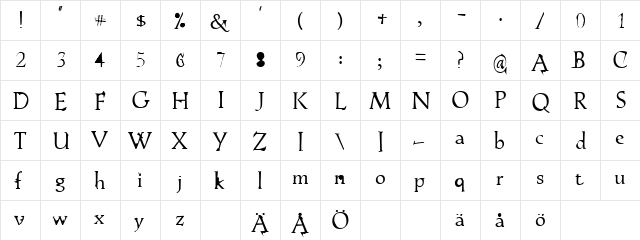
AlSabro Normal
Design Context for AlSabro Typeface
AlSabro is a composed and adaptable typeface that performs quietly and consistently across a wide range of design contexts.